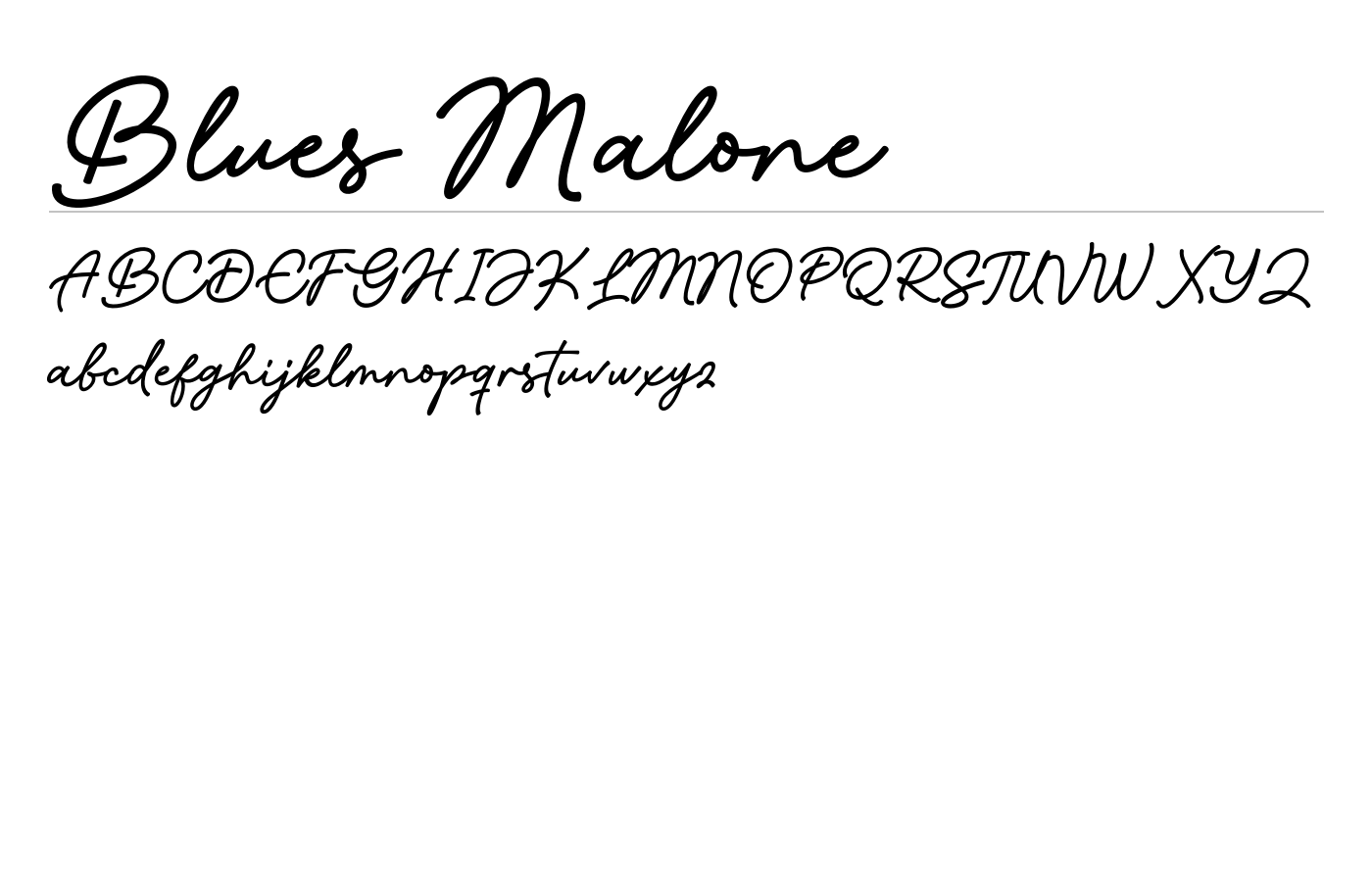
Blues Malone is a flowing, elegant script font with a casual yet refined handwritten feel. Its smooth, connected strokes and moderate weight make it ideal for adding a personal, artistic touch to branding, invitations, and stylish editorial designs. This font works beautifully where warmth and sophistication are desired, especially in creative and fashion contexts.
Blues Malone Font
About Blues Malone Font
| Designer | Rangga Singgih Subekti |